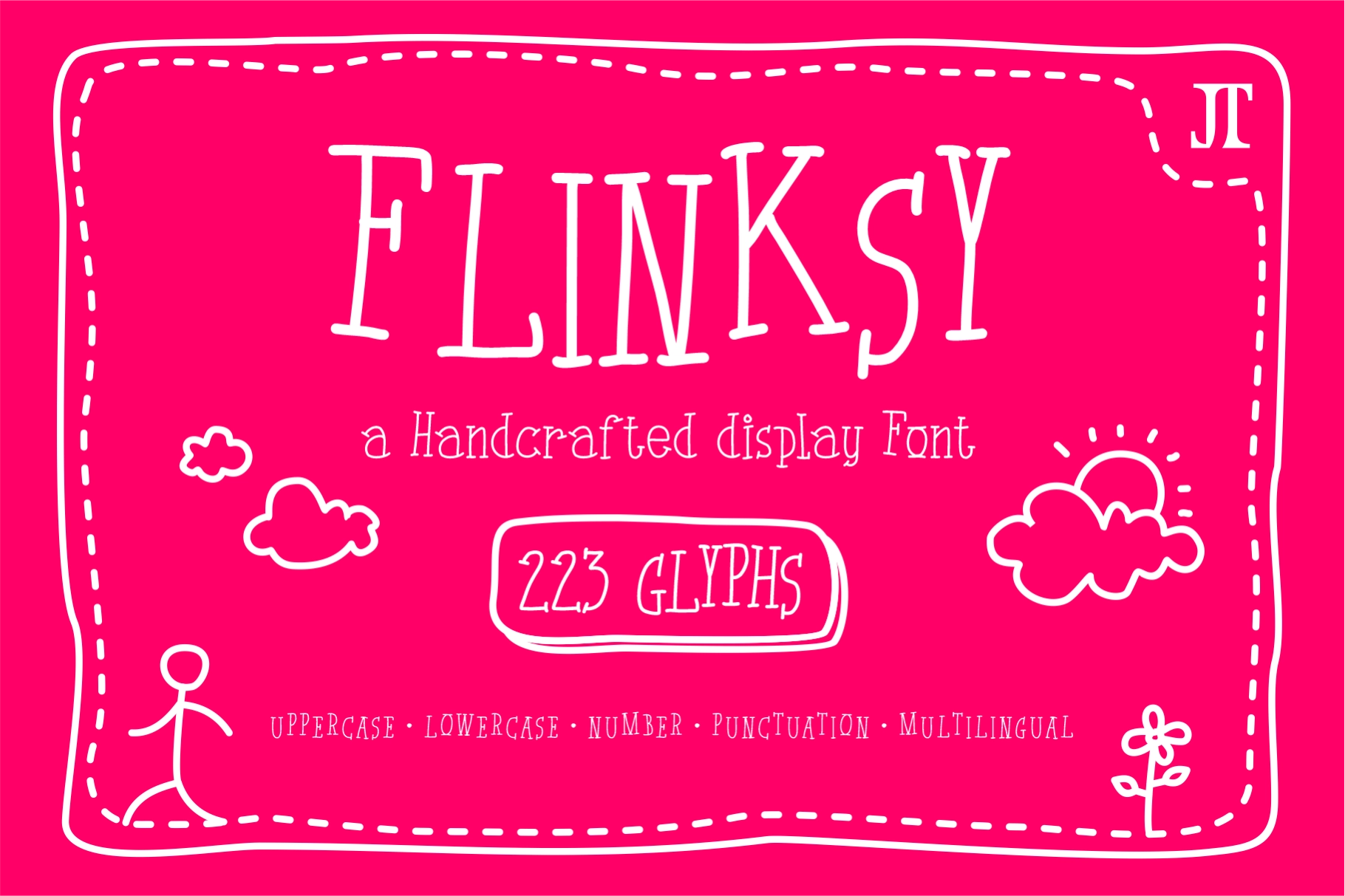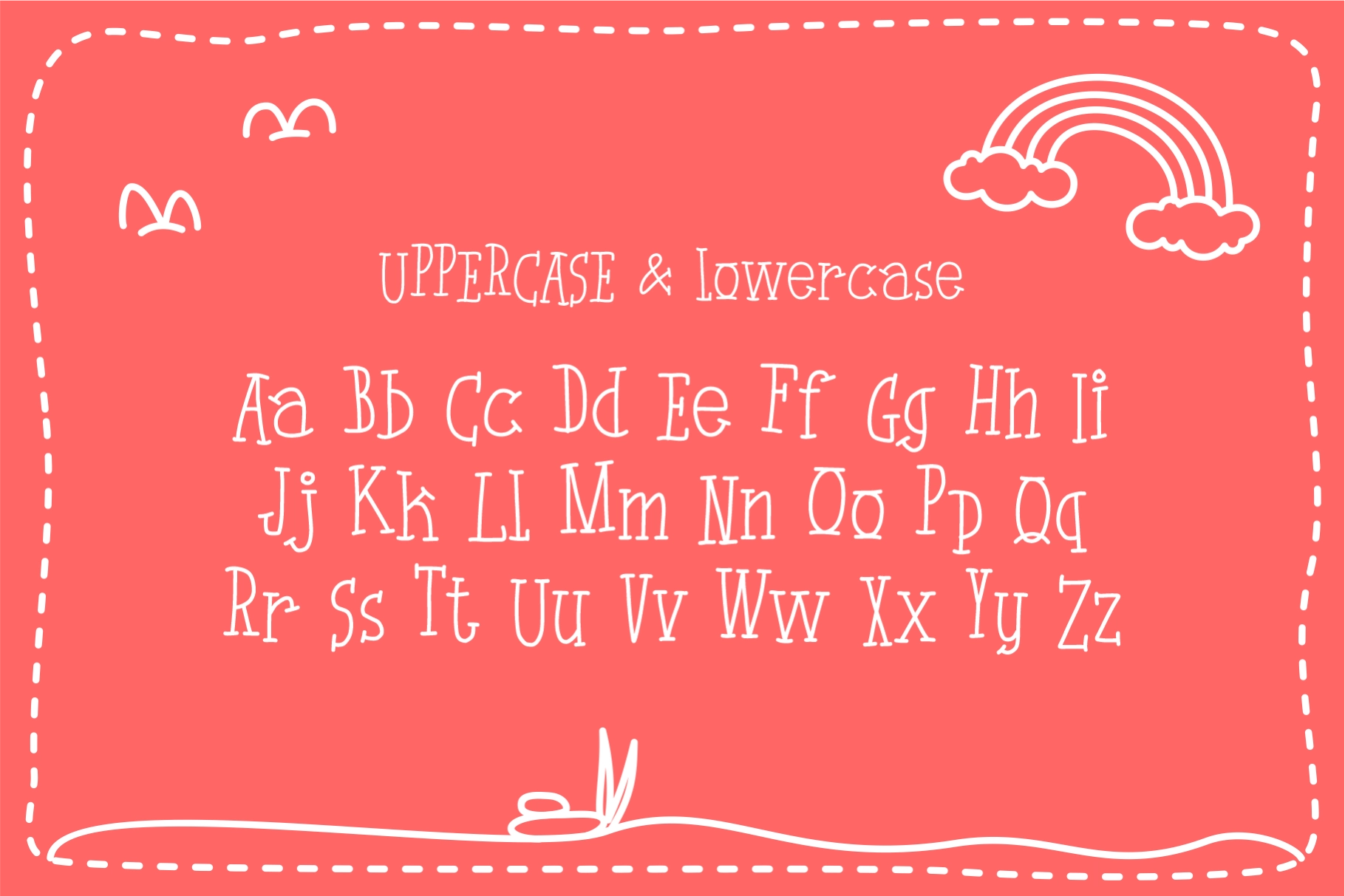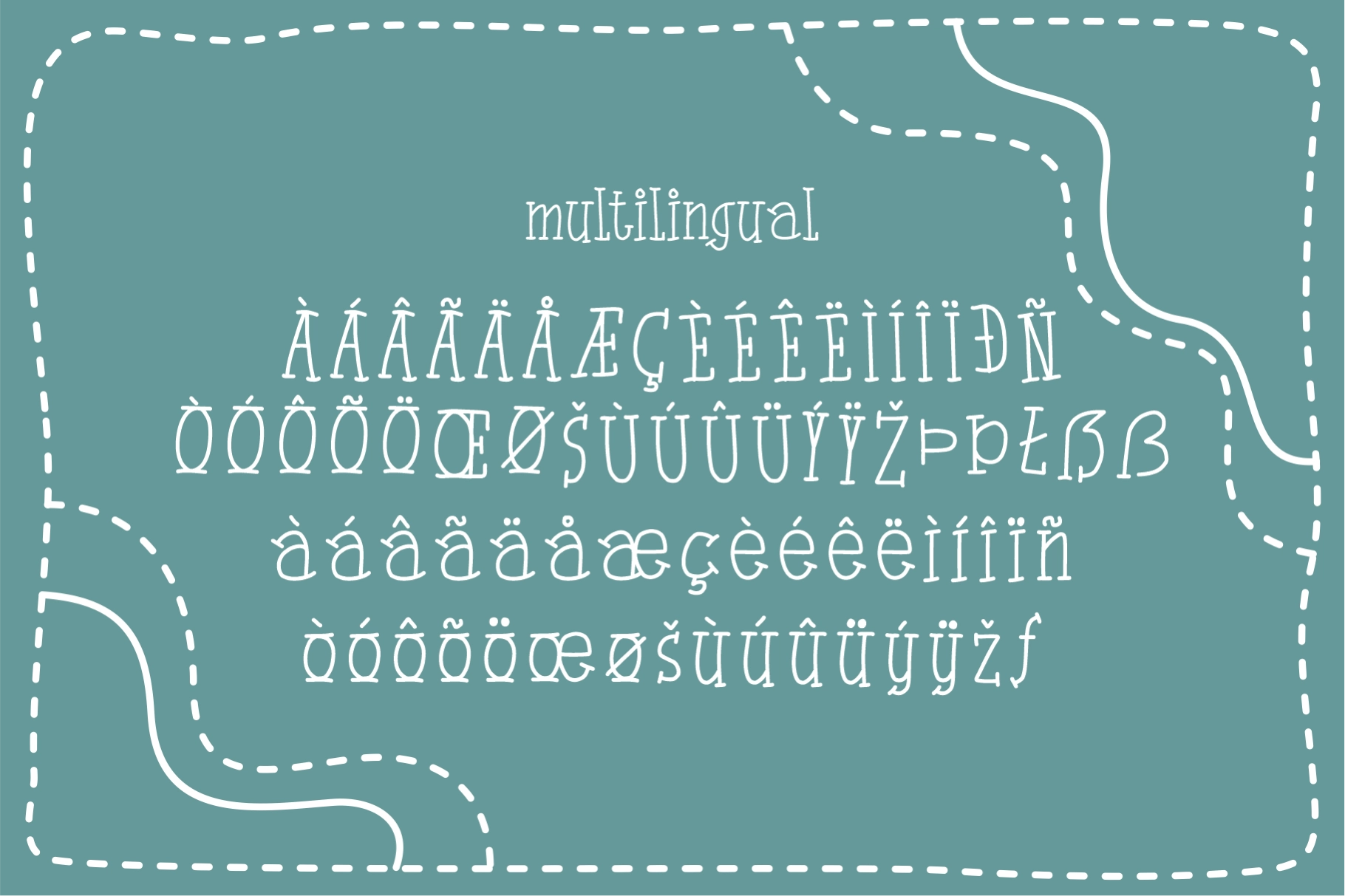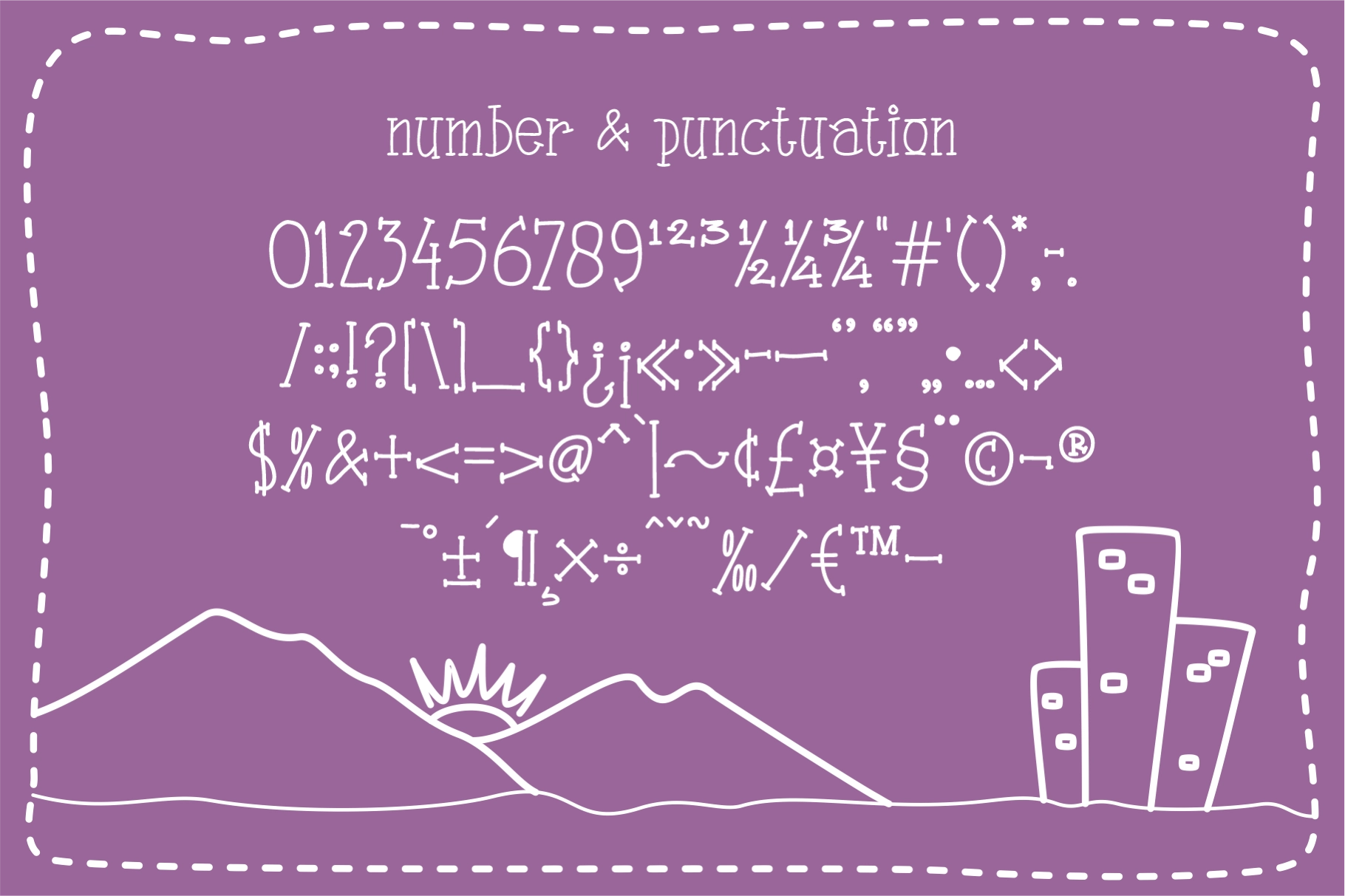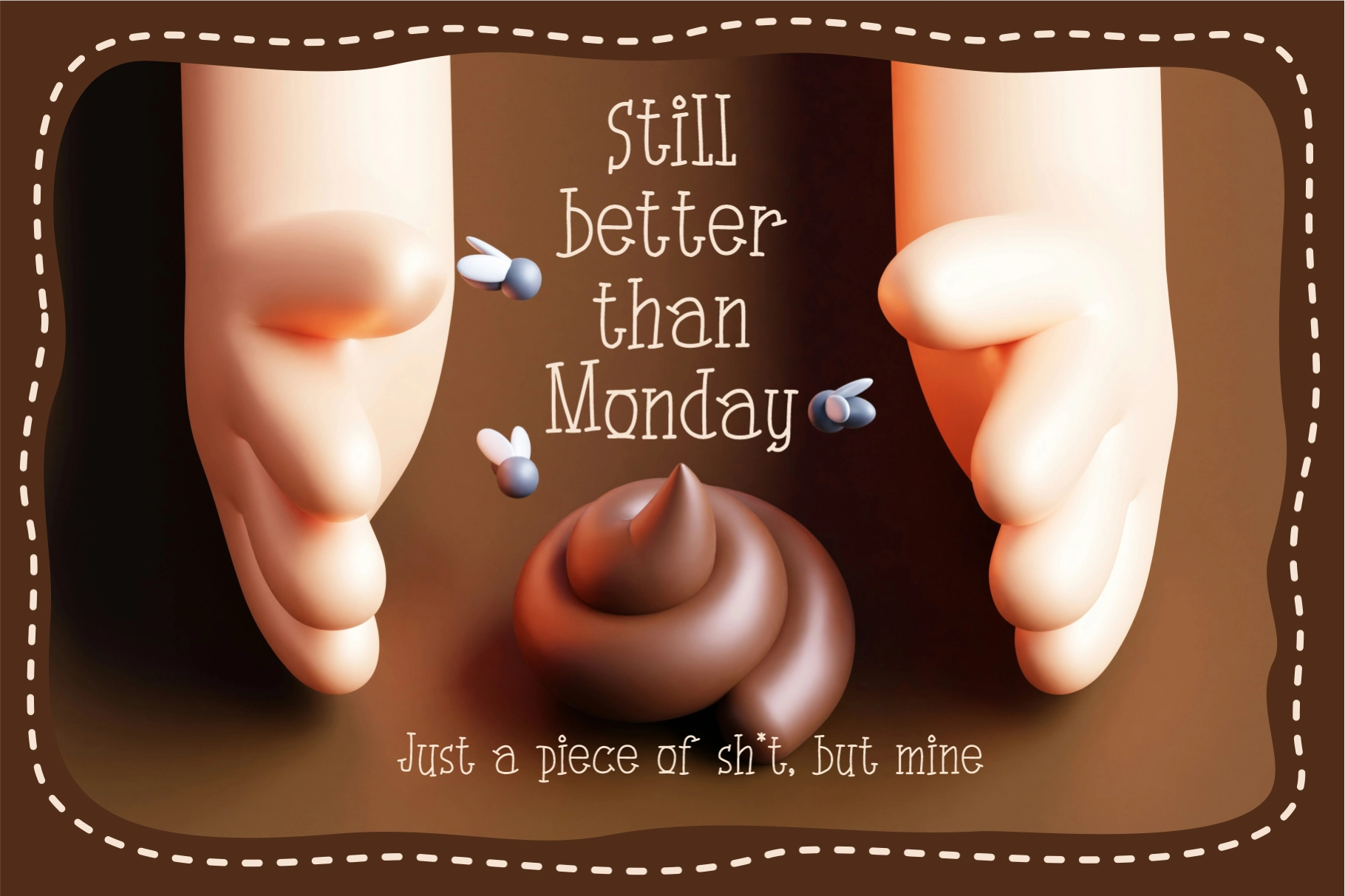
Flinksy - Playful Handdrawn Font
This playful display font has tall, uneven letterforms, thin sketch-like strokes, and a handmade rhythm that keeps every word light on its feet. Its quirky serifs, loose spacing, and doodle-friendly character give headings a cheerful, human-made look without slipping into full chaos — admirable restraint, honestly.
Use Flinksy for children’s books, classroom worksheets, greeting cards, toy packaging, kids’ apparel, birthday invitations, nursery prints, quote posters, café menus, sticker packs, social media graphics, craft branding, and more. It is especially strong for designs that need charm, humor, and a softer handmade voice.